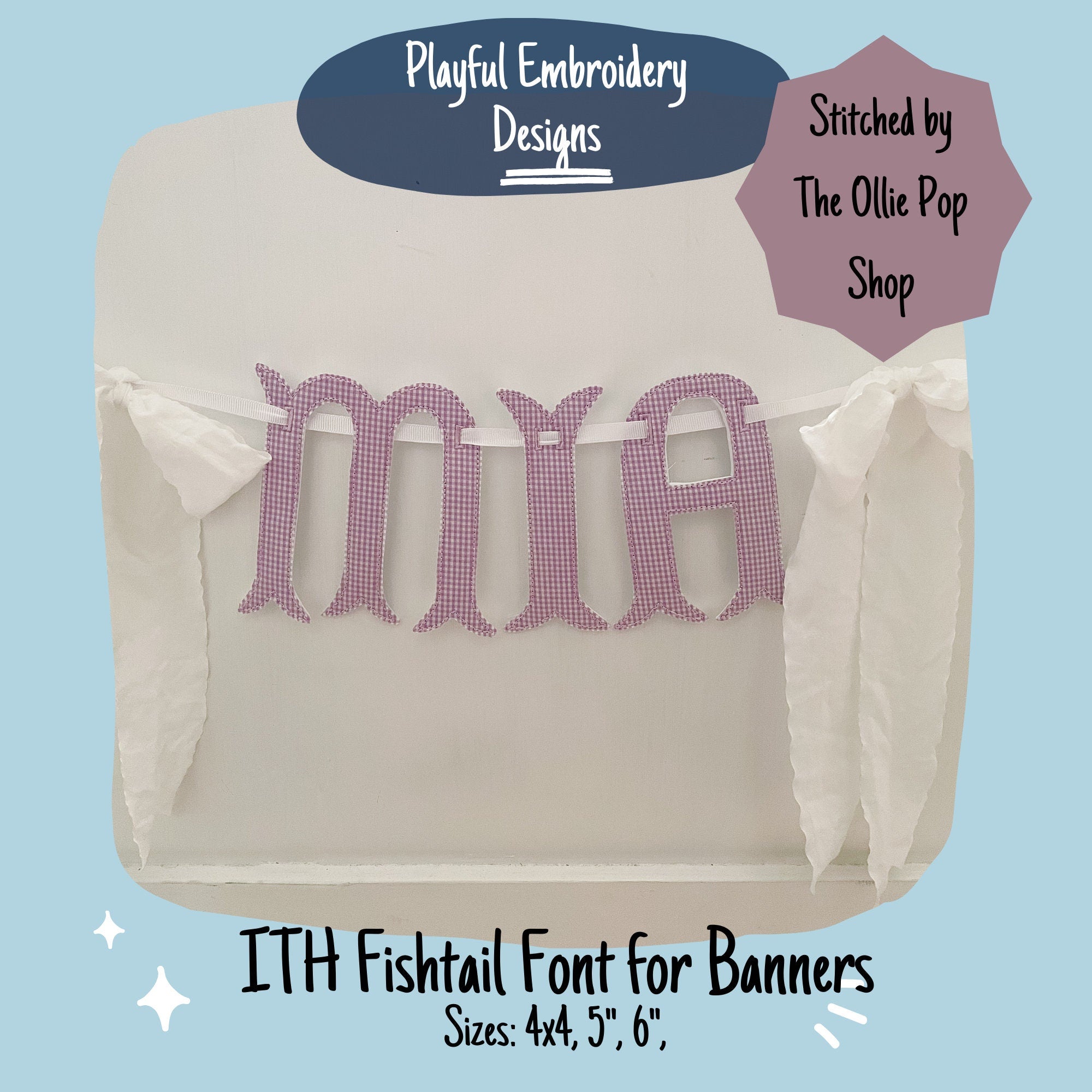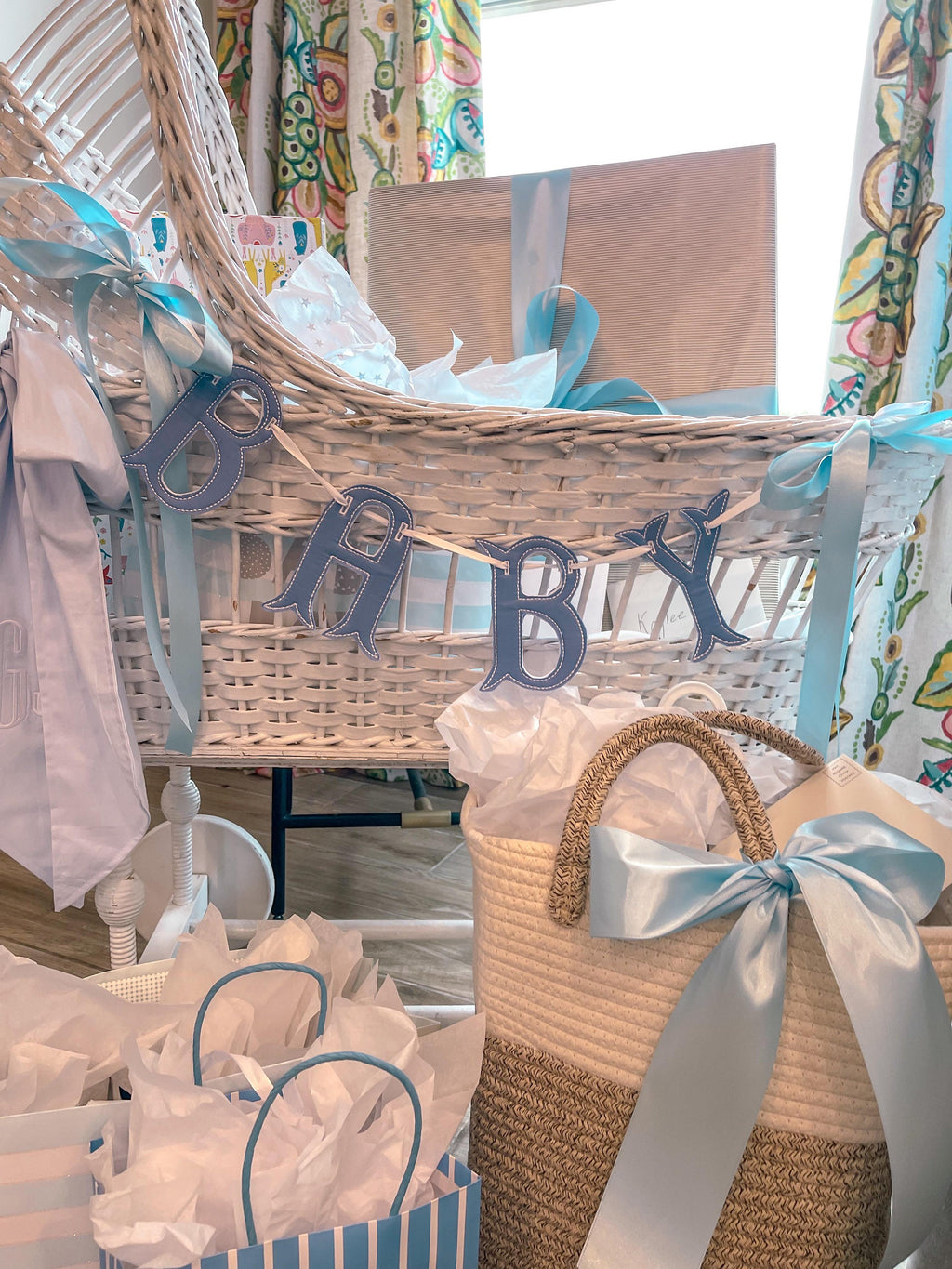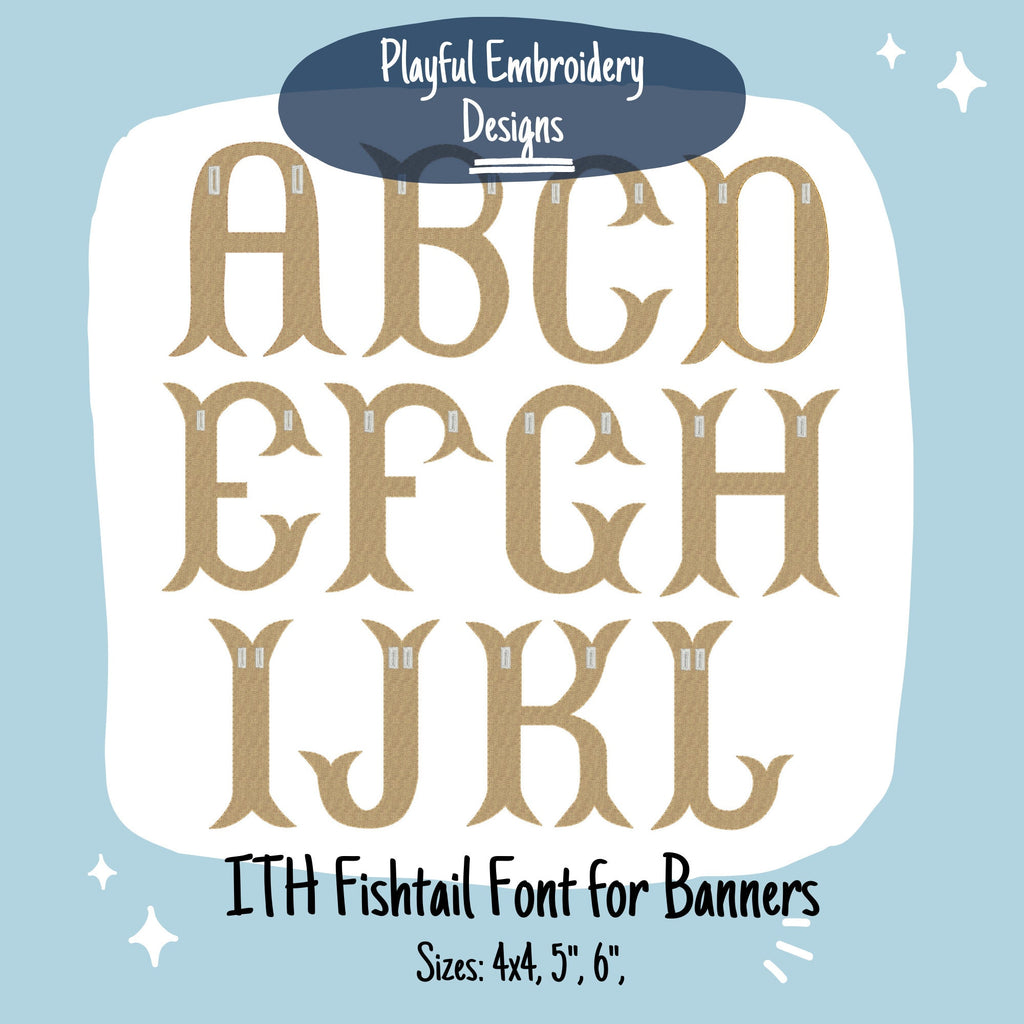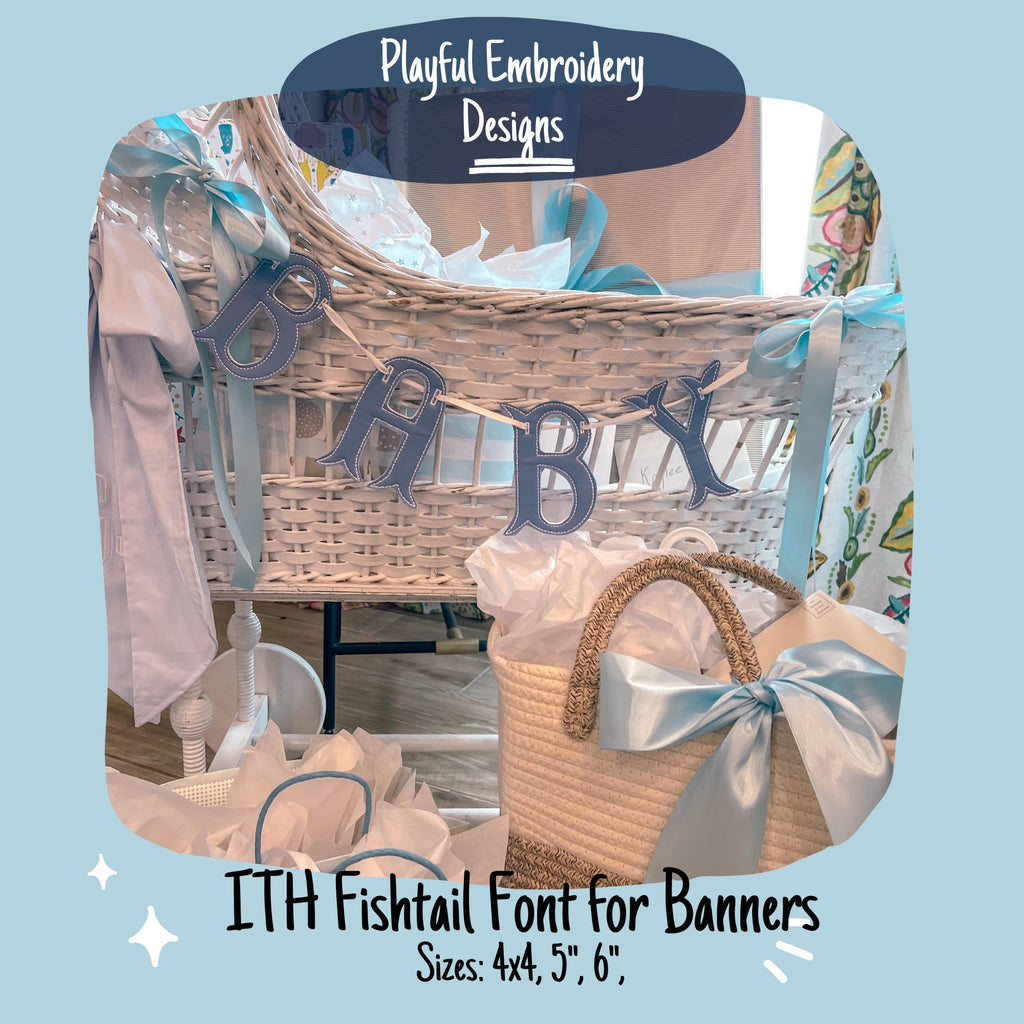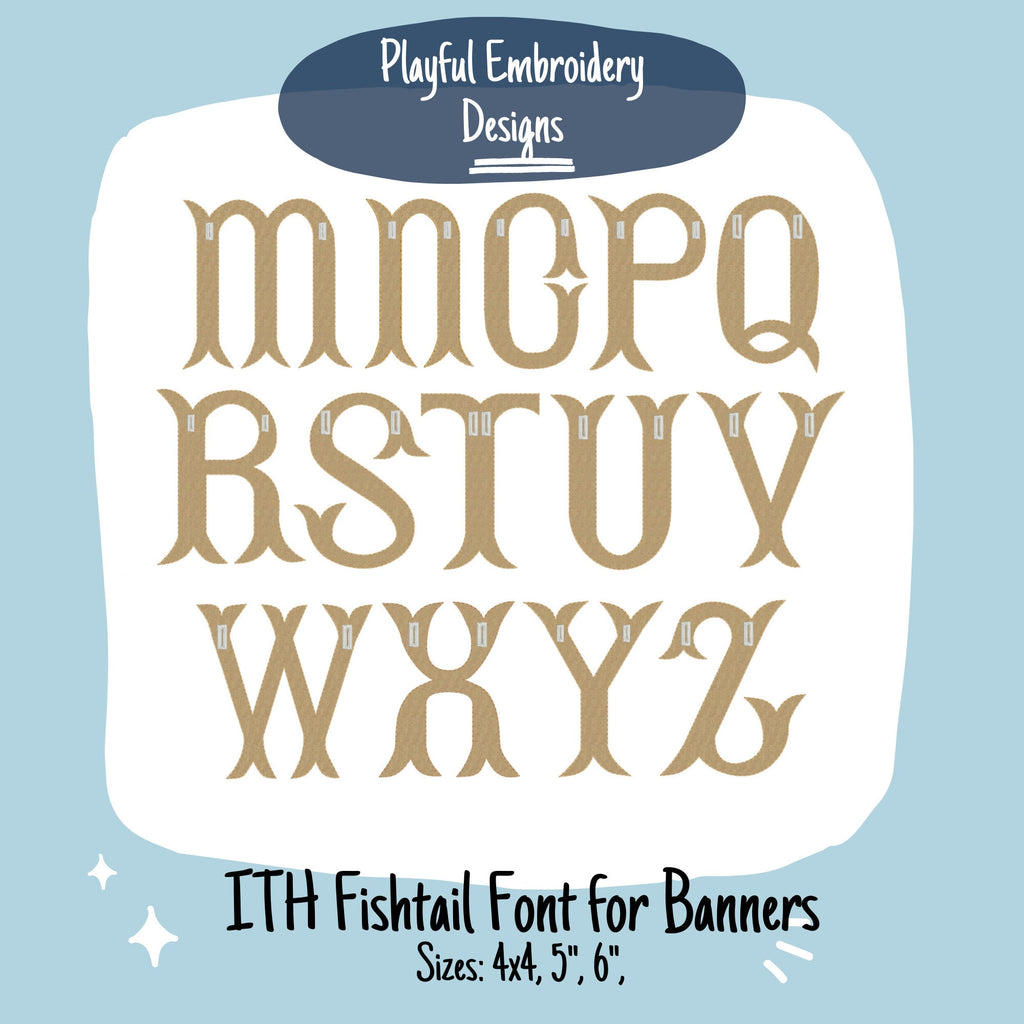
In The Hoop Fishtail Font for Machine Embroidery Design, ITH Banner Font, ITH Fishtail Font for Banners
ITH fishtail font for machine embroidery made banners. Each letter has a rectangular hole for ribbon so that you can make special banners for your special occasions.